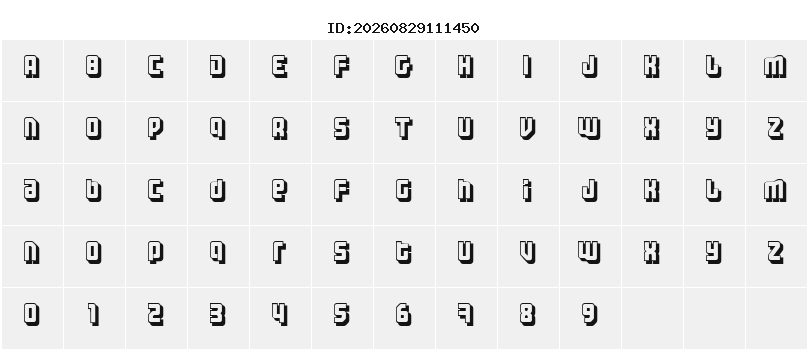
Three the Hard way shadowed Preview
• Font Name: Three the Hard way shadowed
• Full Font Name: Three the Hard way shadowed
About Three the Hard way shadowed.ttf
Three the Hard way shadowed.ttf is a modern, elegant sans-serif font designed for ultimate readability and visual harmony. Perfect for branding, headlines, web design, and print materials.